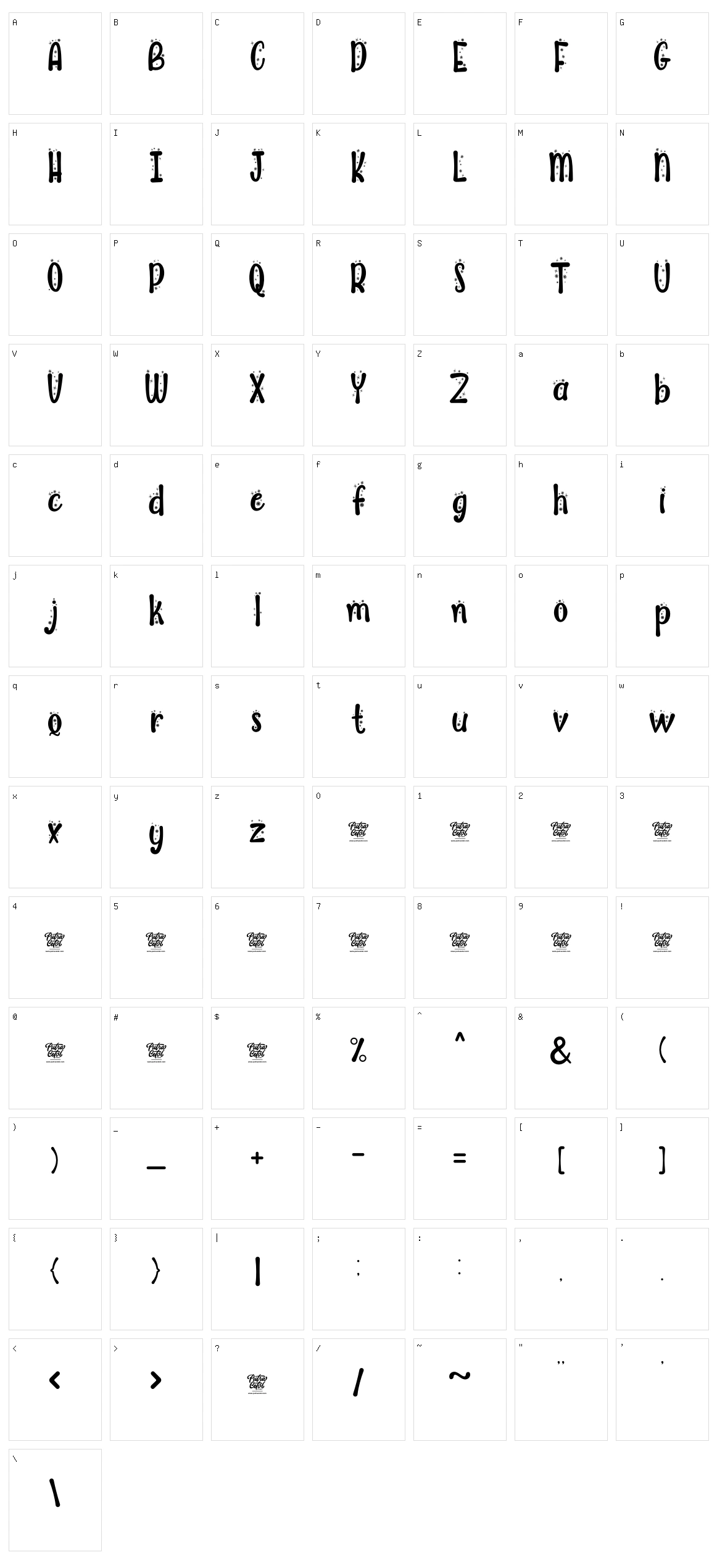
The free font Cute Snow is carefully designed by PutraCetol Studio, showcasing a thoughtful balance of creativity and usability and falls under the Christmas font style. When you download the ZIP file, it contains only 793 KB of font files, making it lightweight and quick to download. Please review the license details below to understand permitted usage and distribution rights. If license information is not available, we recommend using this font for personal projects only or contacting the author directly for commercial usage permissions.